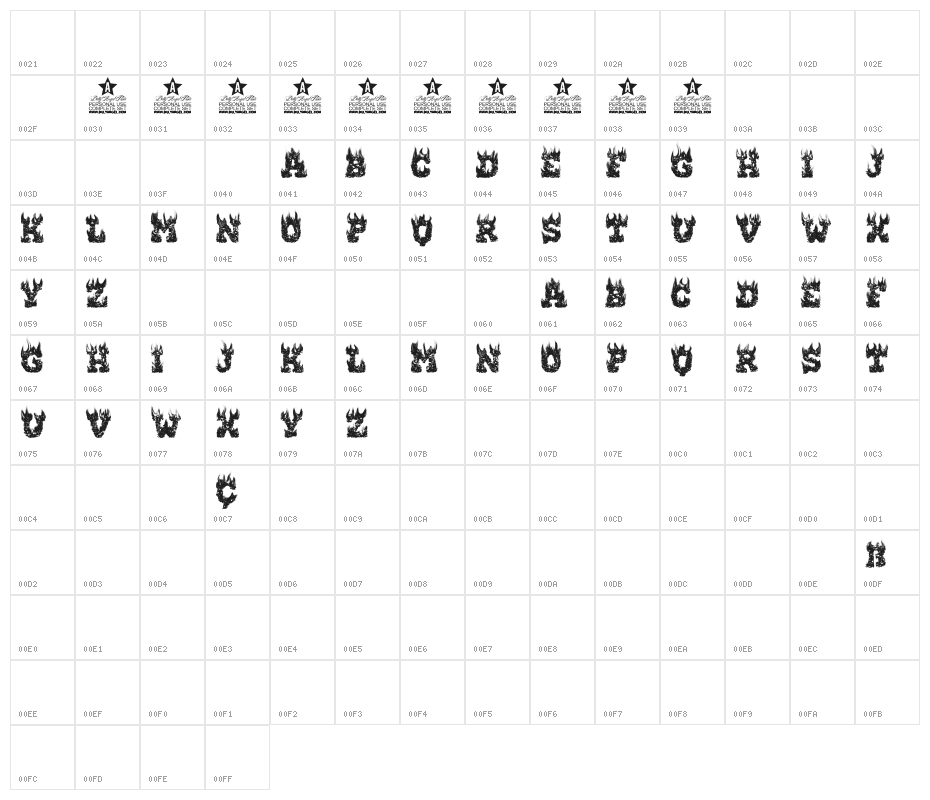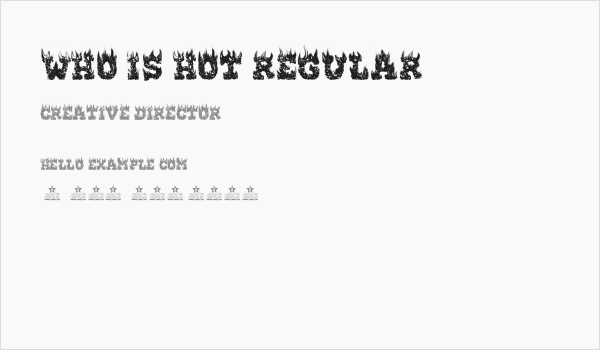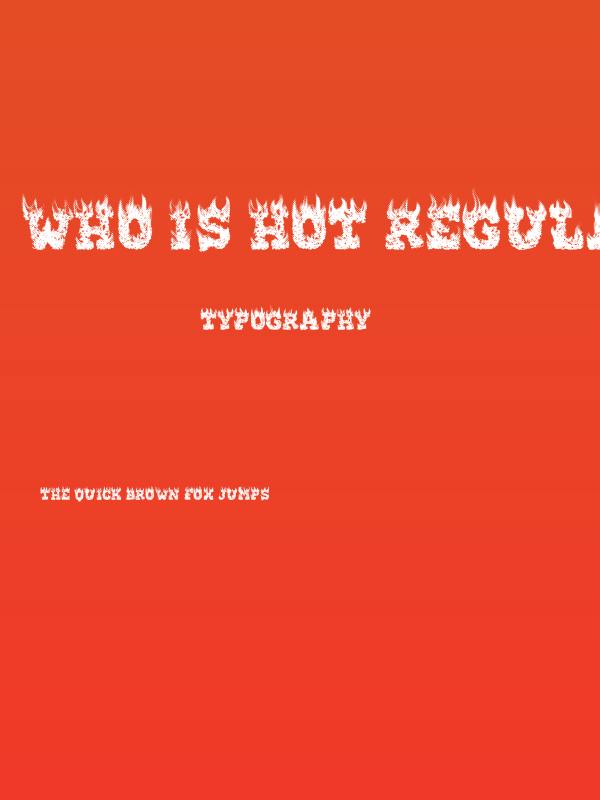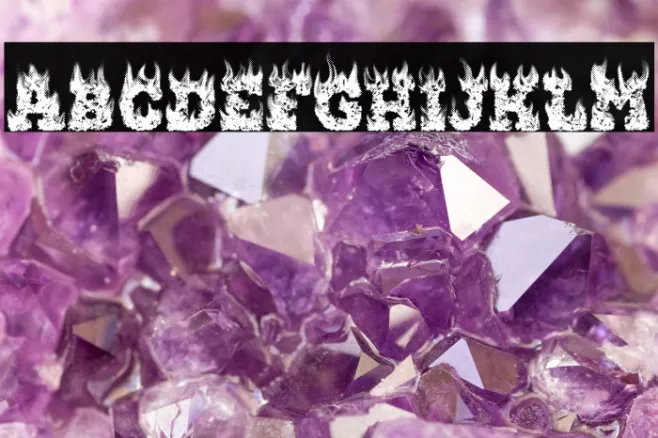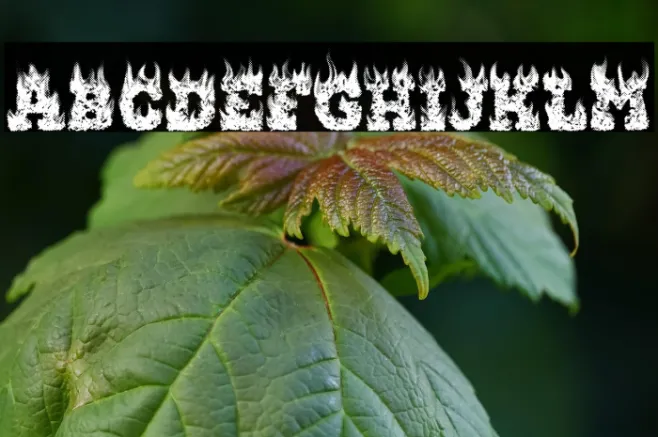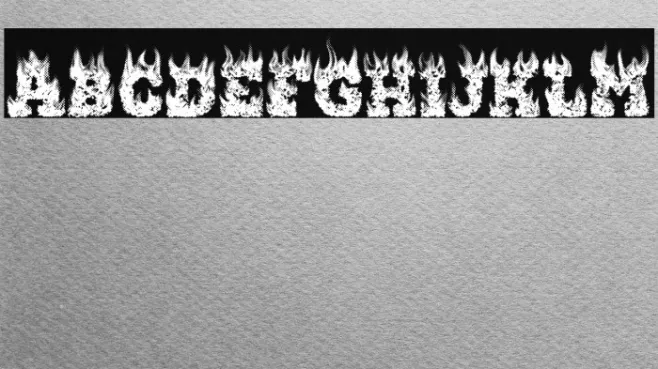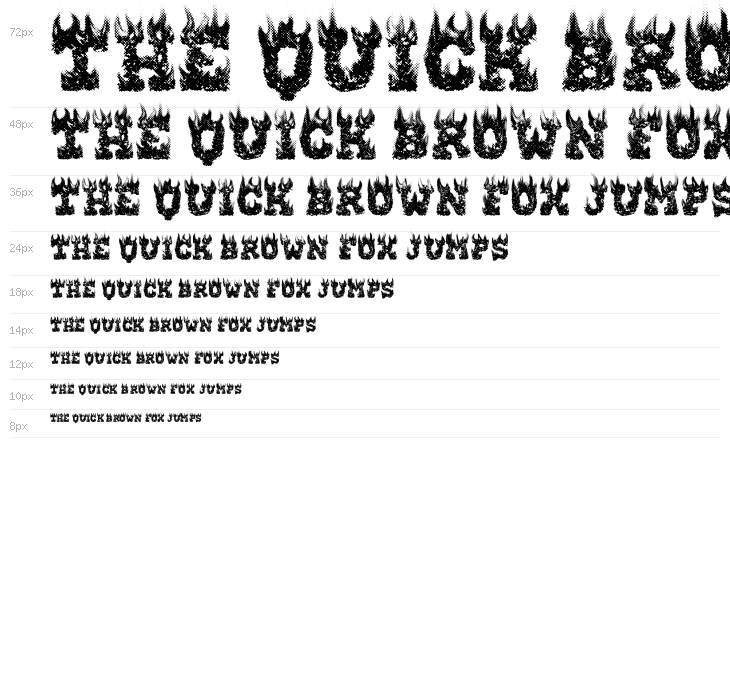
WHO IS HOT Regular Font
WHO IS HOT Regular Description
This font features a bold and dramatic design with each letter engulfed in stylized flames, creating a sense of intensity and energy. The uppercase letters are uniform in height, with intricate detailing that mimics the flickering of fire. The texture within each character adds depth and a tactile quality, making it visually striking. The overall appearance is both chaotic and controlled, capturing attention with its unique and fiery aesthetic. This font is ideal for projects that require a bold statement or a theme related to heat, fire, or excitement.
| Proposed Projects | Ideal for event posters, music album covers, video game titles, or any design needing a fiery, energetic theme. |